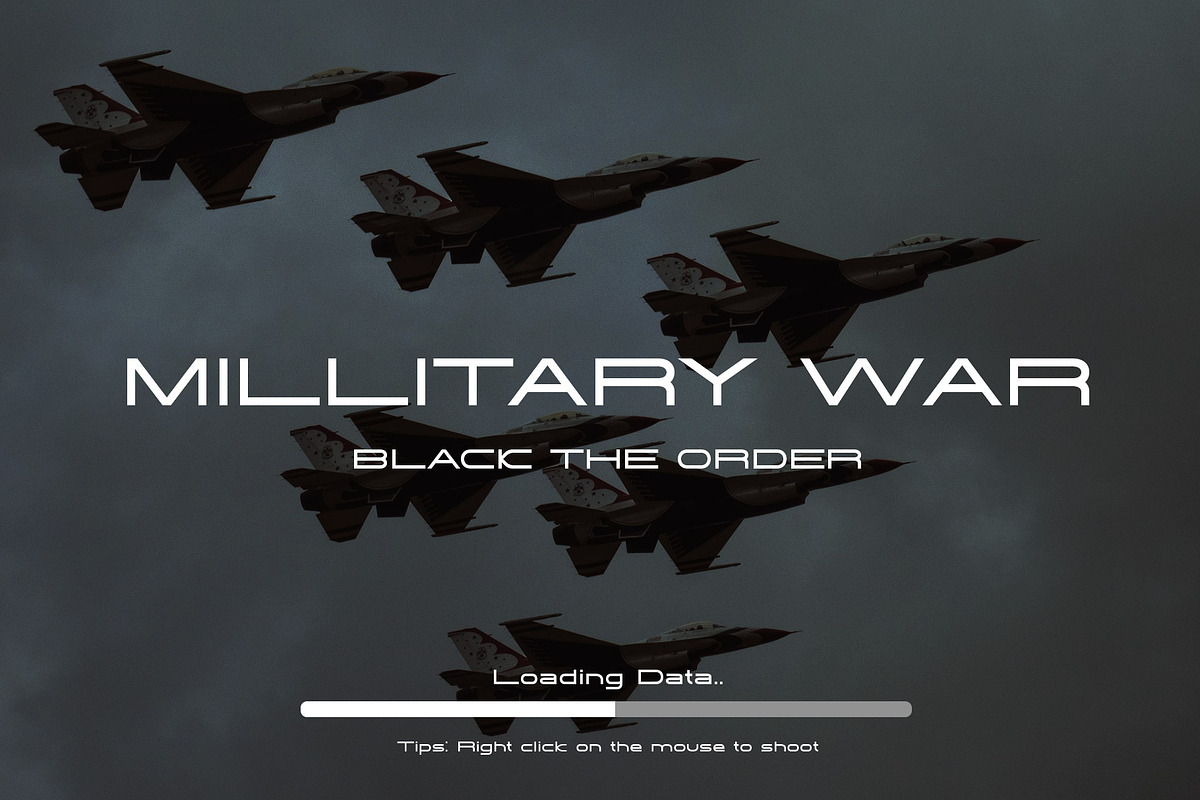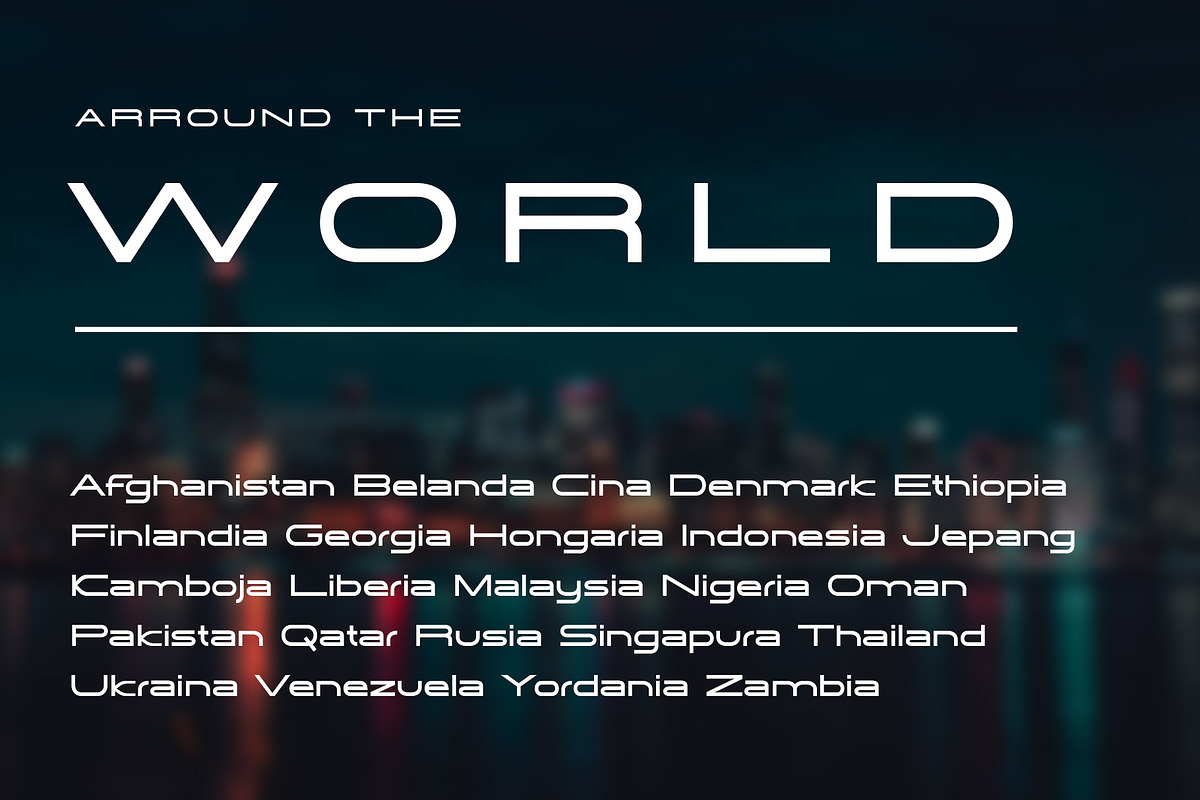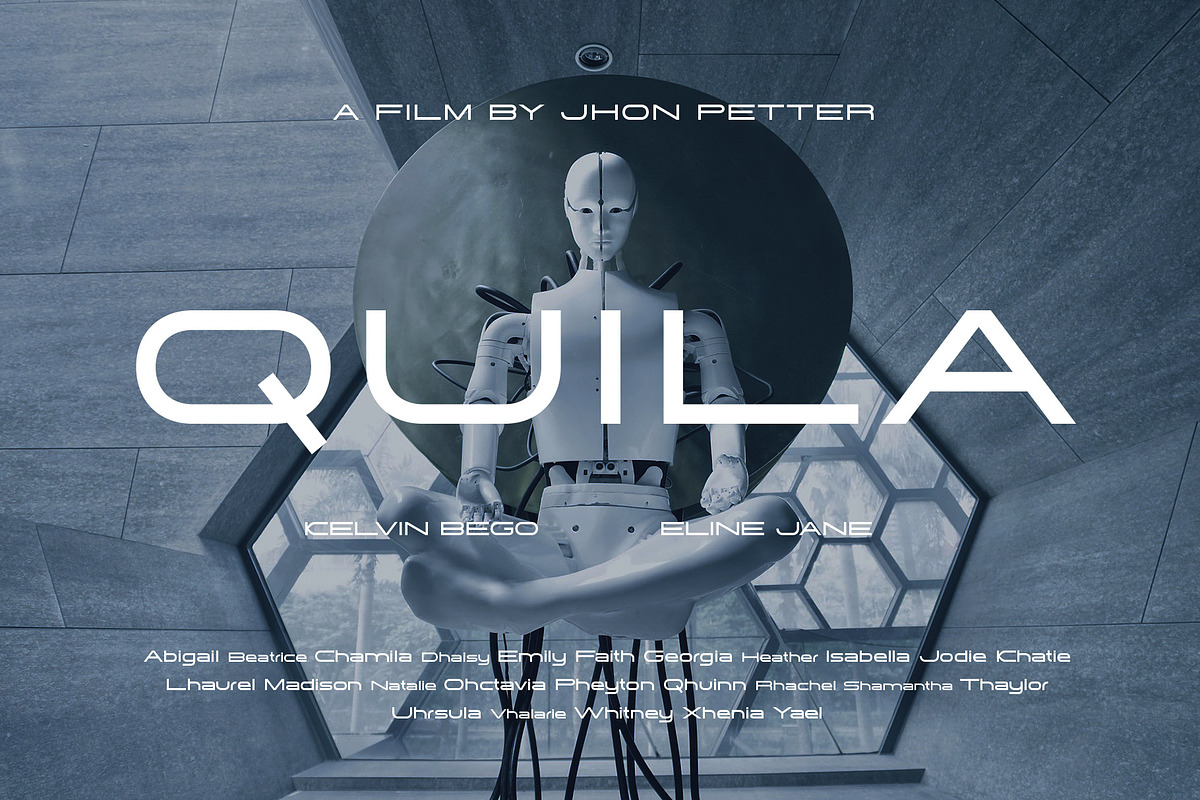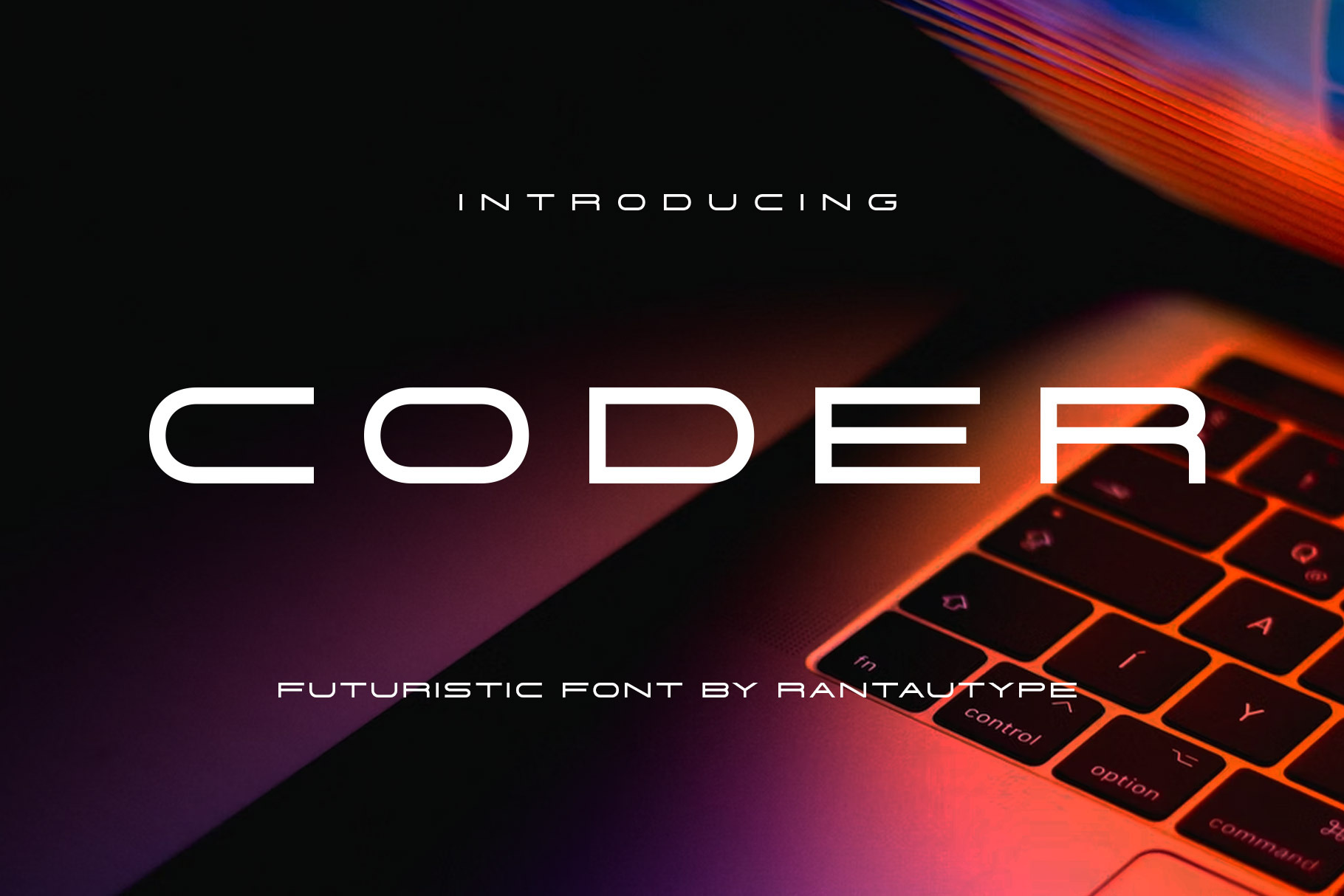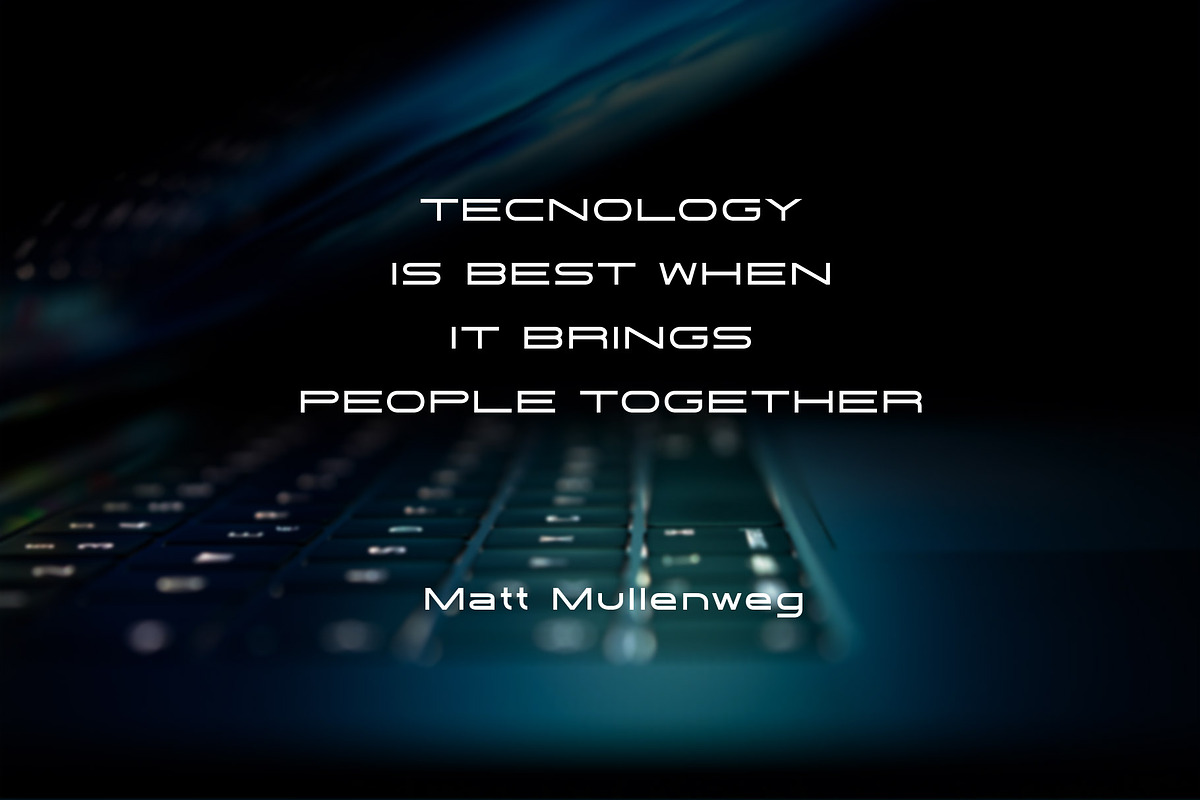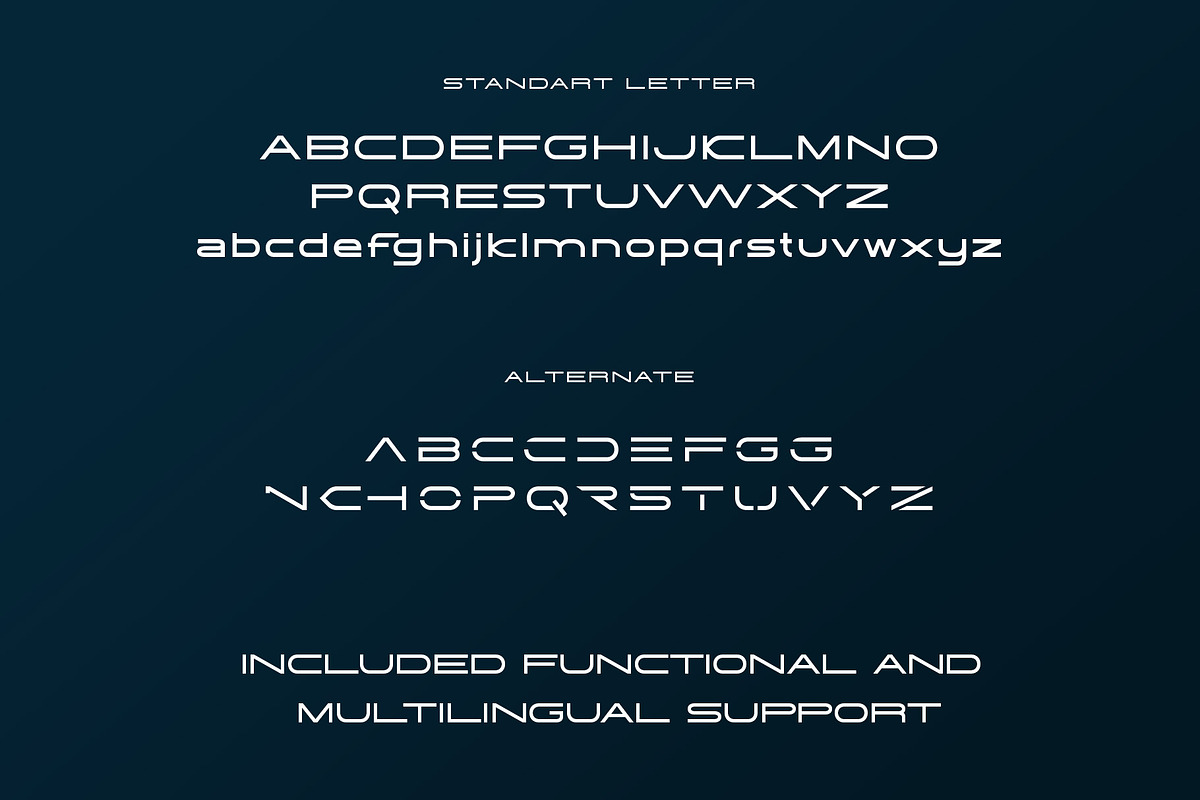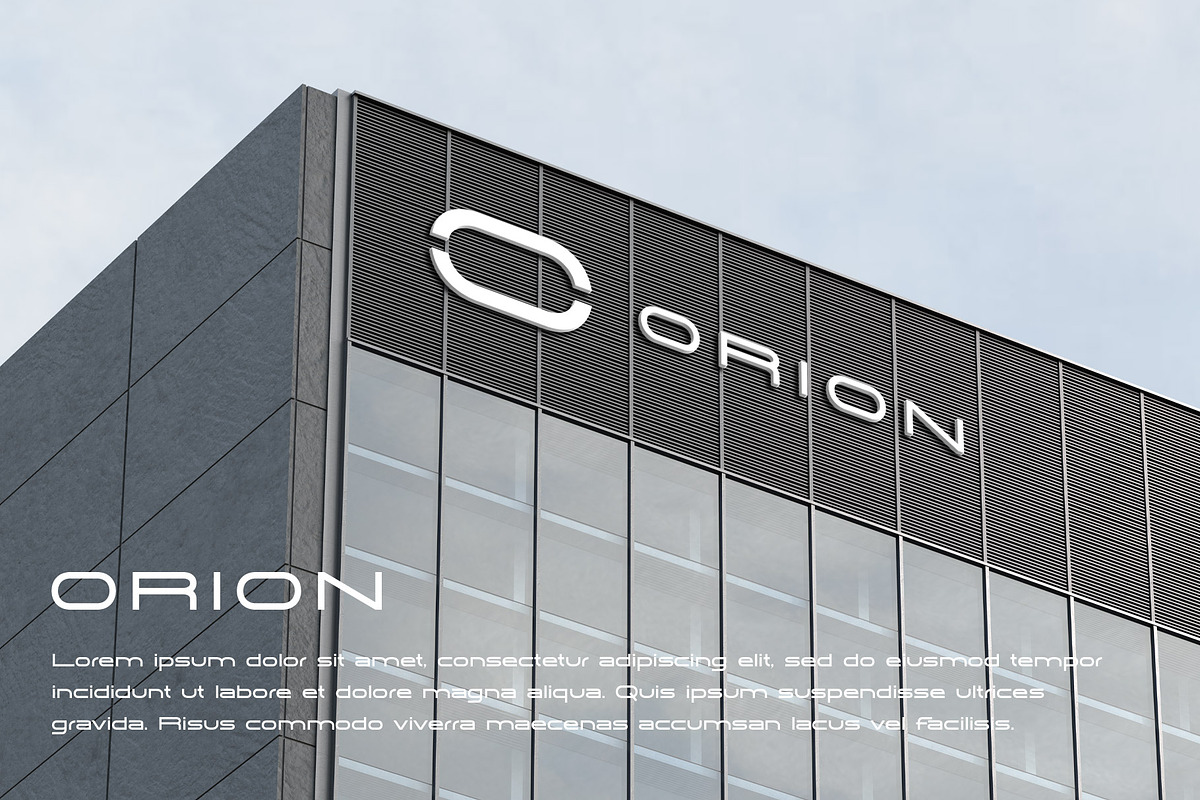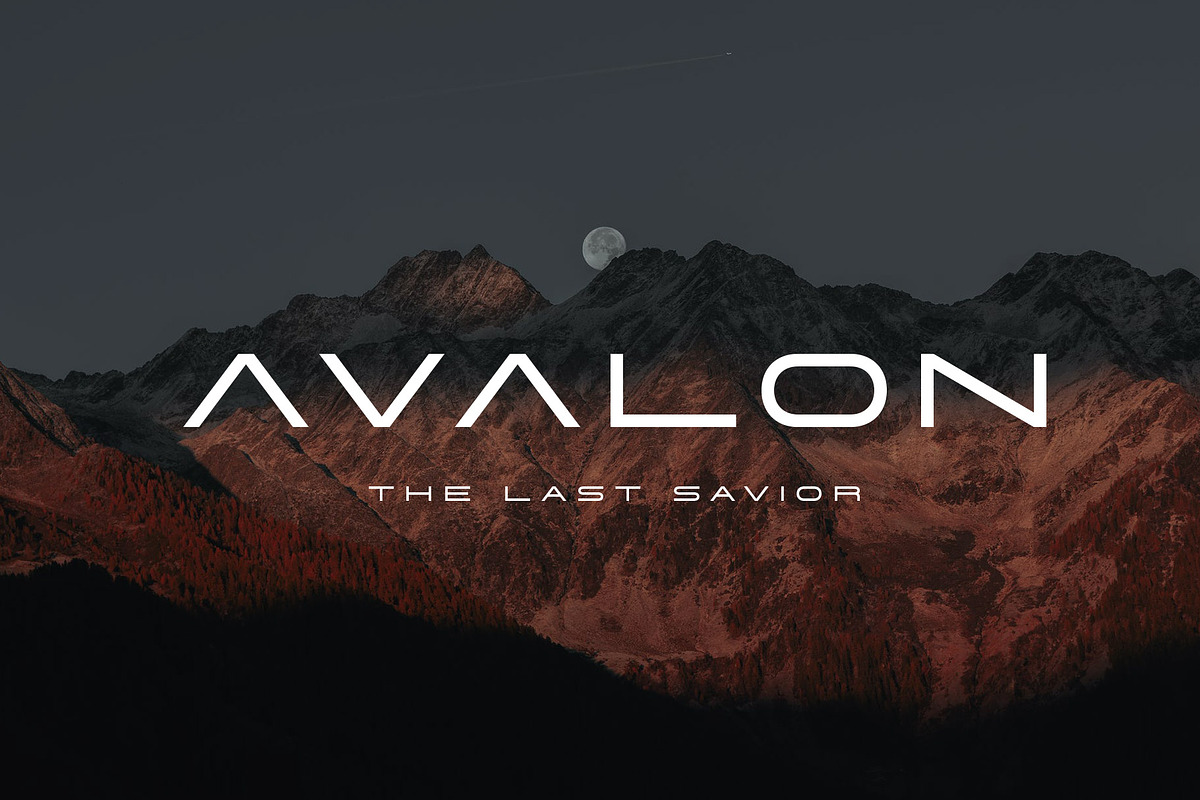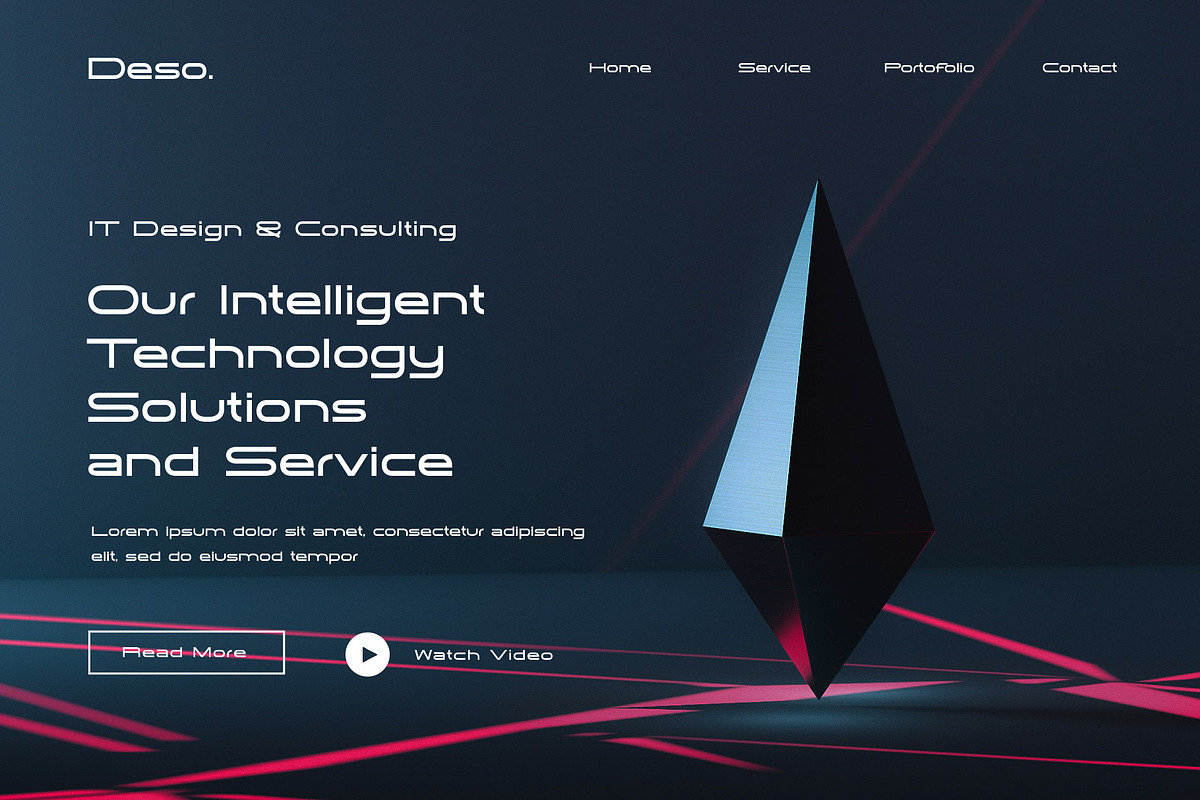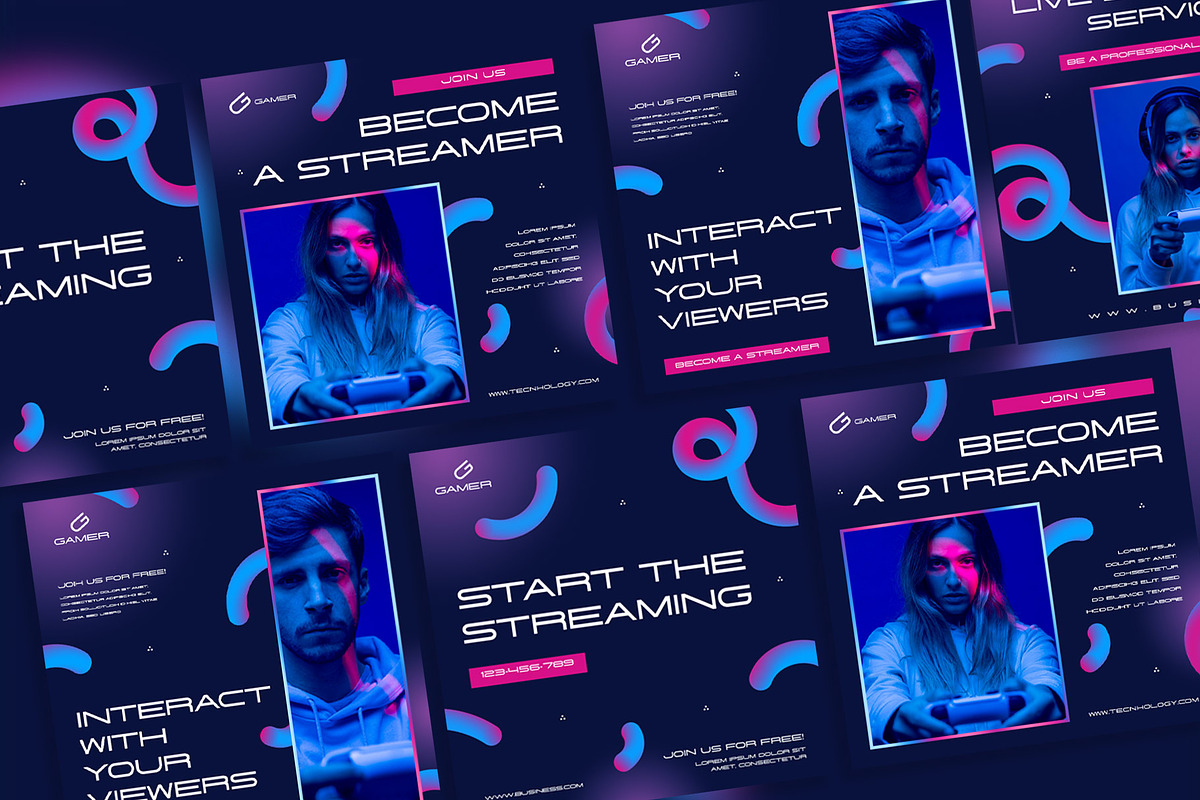
Coder Futuristic Font
Hi Ladies and Gentleman ! Proudly present Coder futuristic font by rantautype
Coder is simple and minimalist font it's inspired by futuristic font. Simplicity curve make this font looks modern, minimal and sophisticated. Coder come with alternate and support multilingual accent support.
Coder is a beautiful choice for any creative endeavor, creating modern, chic, lifestyle design such as logos, title, cover, film or movie, branding, display and magazine and more. Now you have can choice coder to elevate you desaign or branding.
- 2 Font ( reguler and italic )
- Standar character A-Z and a-z
- Unique Alternate Uppercase
- Multilinggual support
- Opentype feature